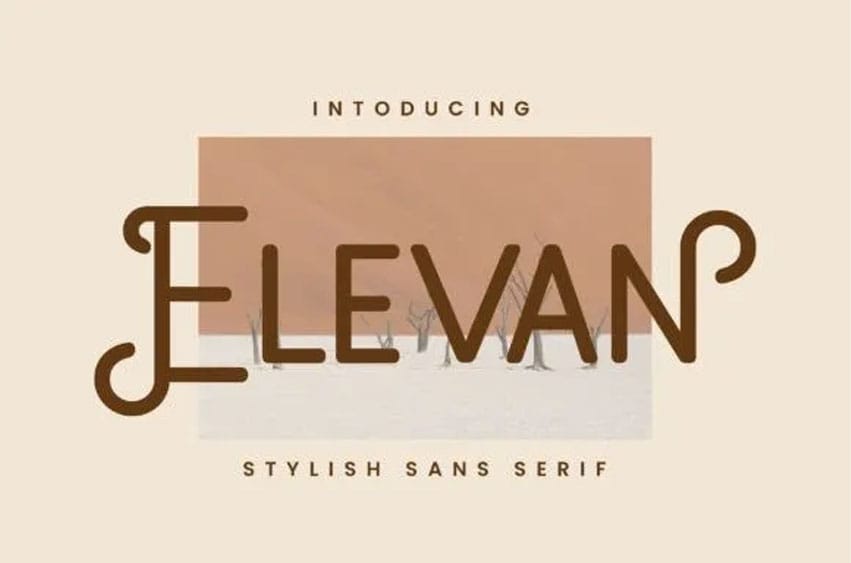
Elevan Font is stylish and rounded sans serif font. It will look perfect in photography designs, watermarks, social media posts, advertisements, logos, branding, and various other projects.